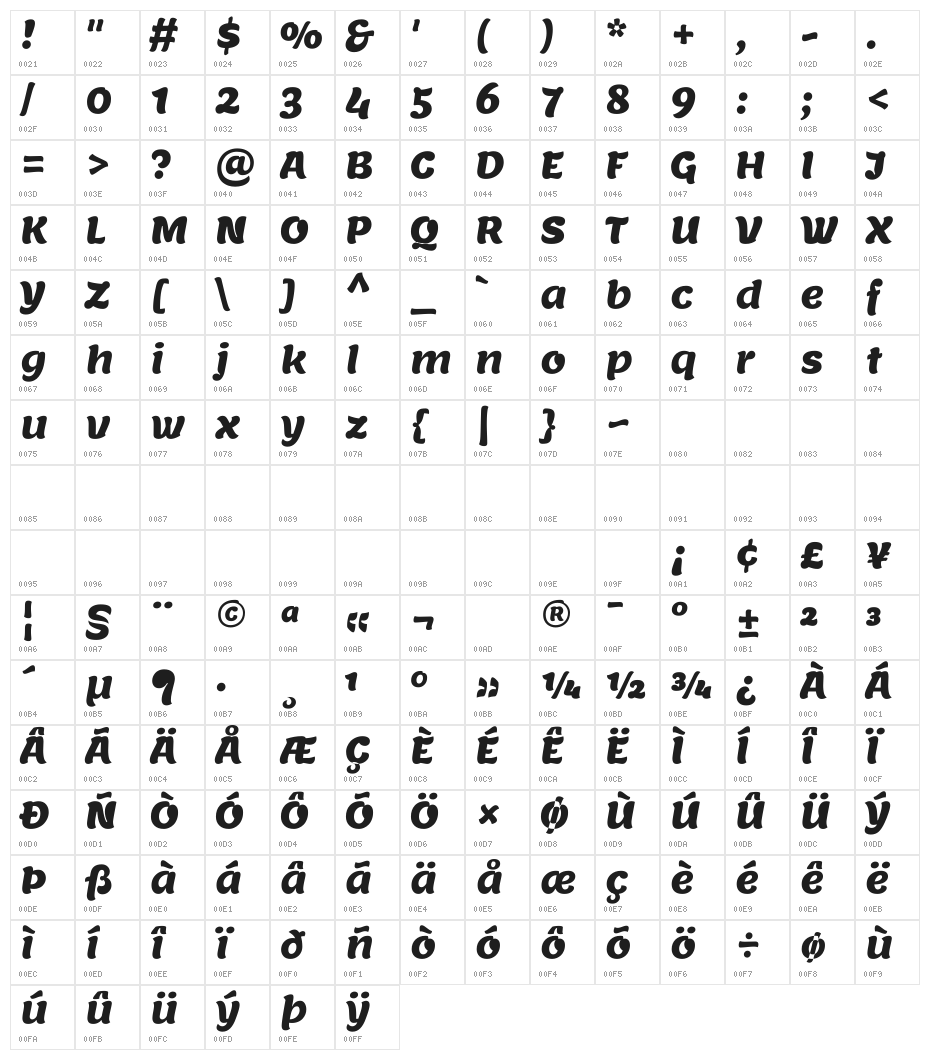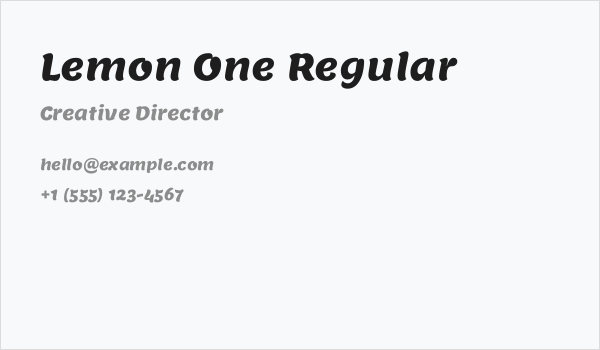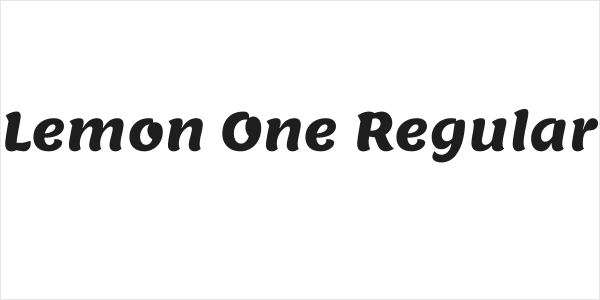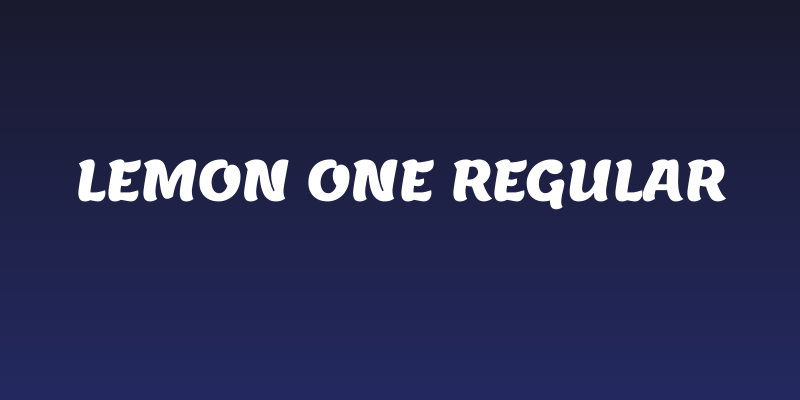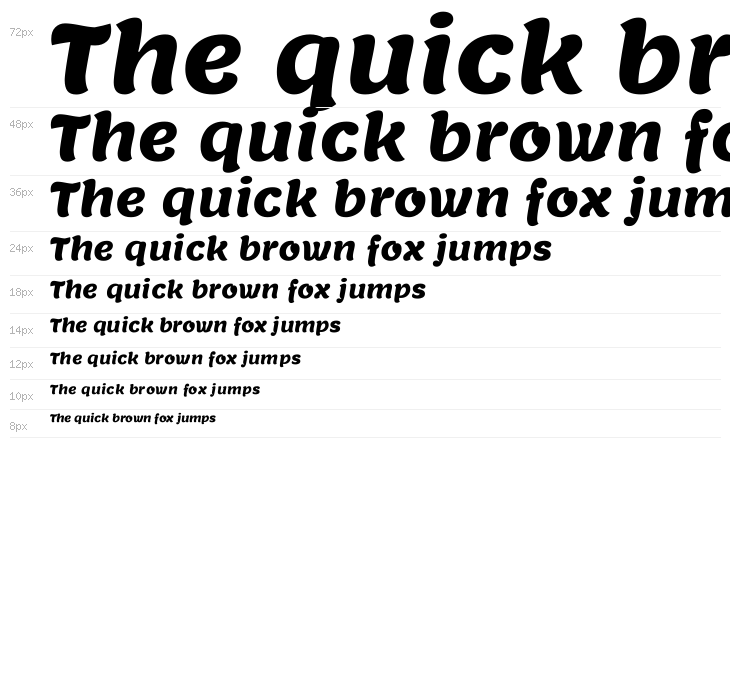
Lemon One Regular Font
Lemon One Regular Description
This font features a playful and bold design with rounded edges and a slightly italicized appearance. The characters are thick and have a smooth, flowing style that adds a sense of movement and energy. The uppercase and lowercase letters maintain a consistent style, with the lowercase letters slightly more compact. The numerals are equally bold and rounded, ensuring readability. Special characters are designed to match the overall aesthetic, making this font versatile for various uses. Its unique style makes it stand out, perfect for projects that require a touch of whimsy and boldness.
| Overall Style | Playful, Energetic |
| Proposed Projects | Ideal for children's books, playful branding, posters, and creative designs. |